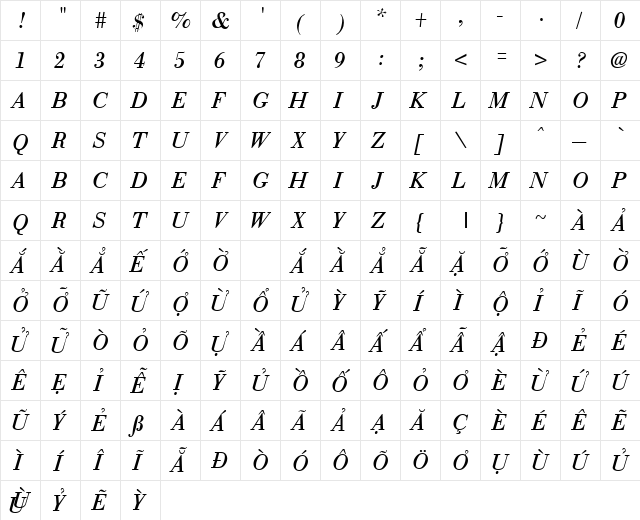
VPS Con Son Hoa Italic
Design Context for VPS Con Son Hoa Typeface
VPS Con Son Hoa is a composed and adaptable typeface that performs quietly and consistently across a wide range of design contexts. Its italic angle brings a sense of urgency and motion to the letterforms.